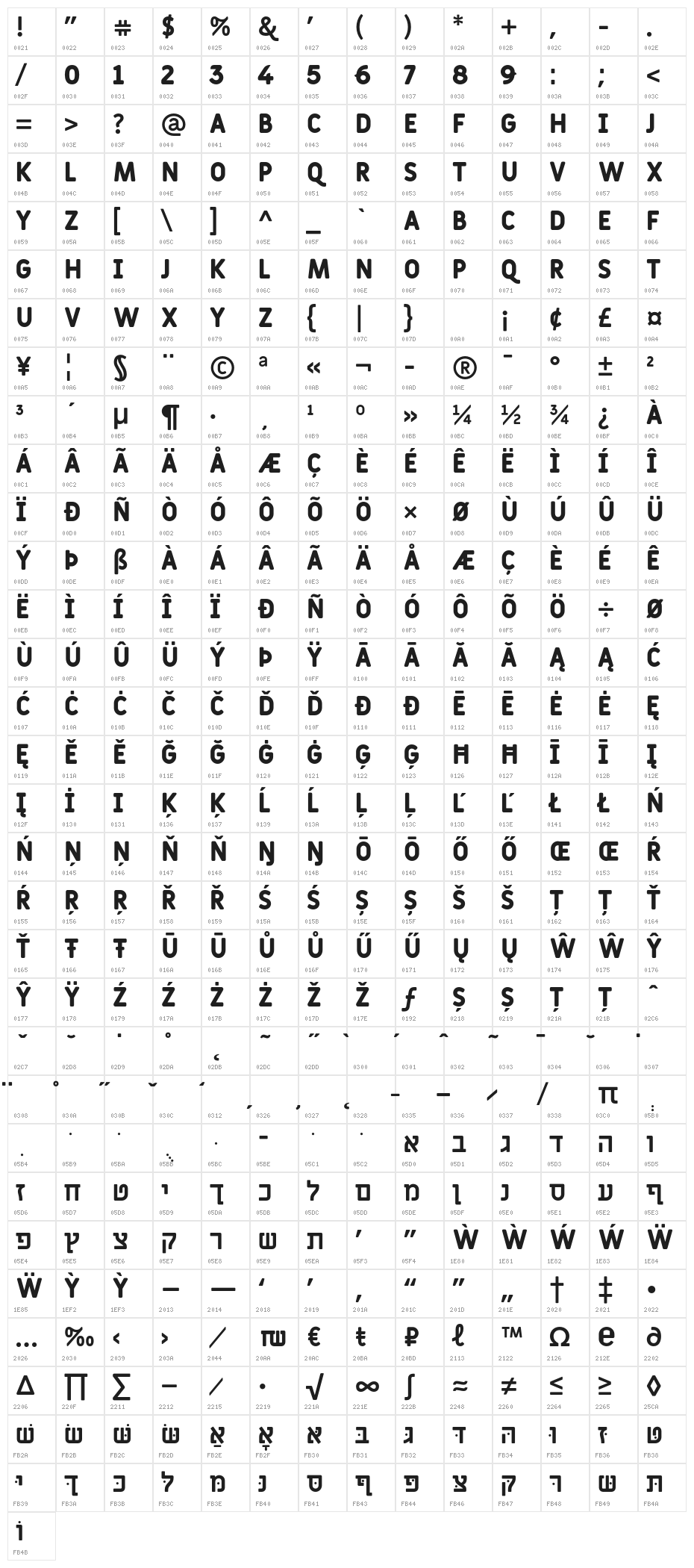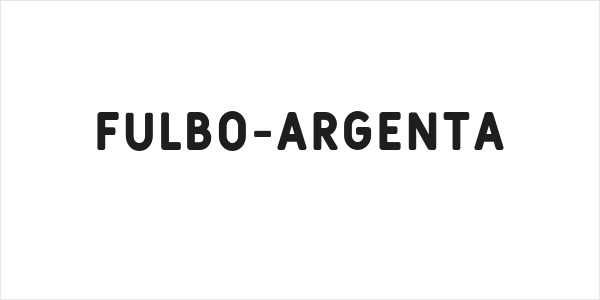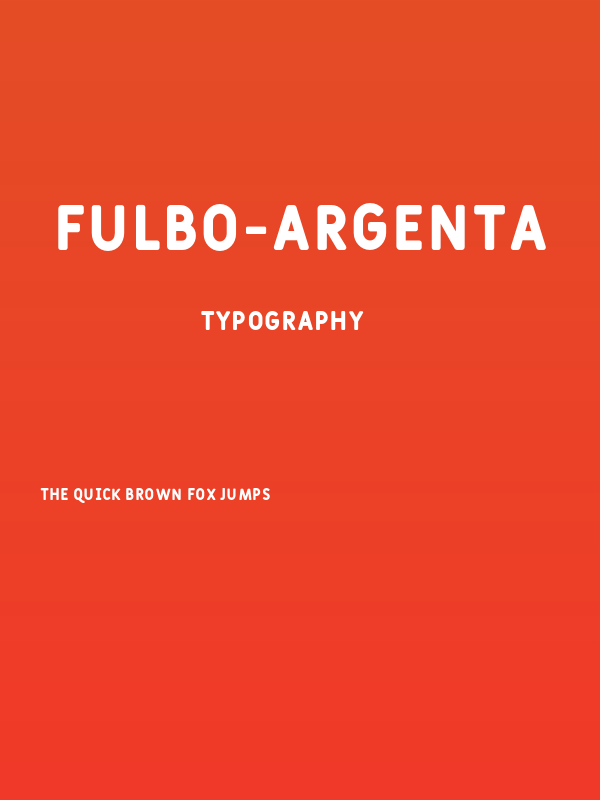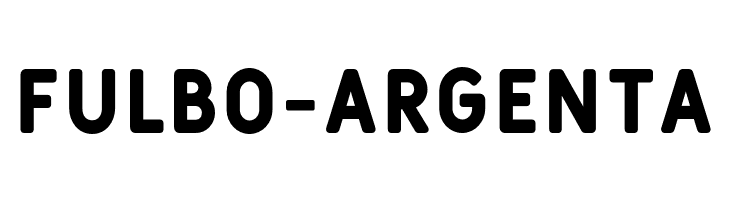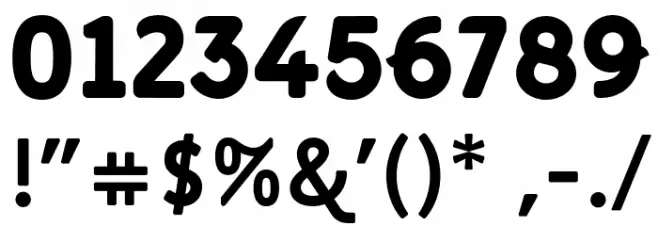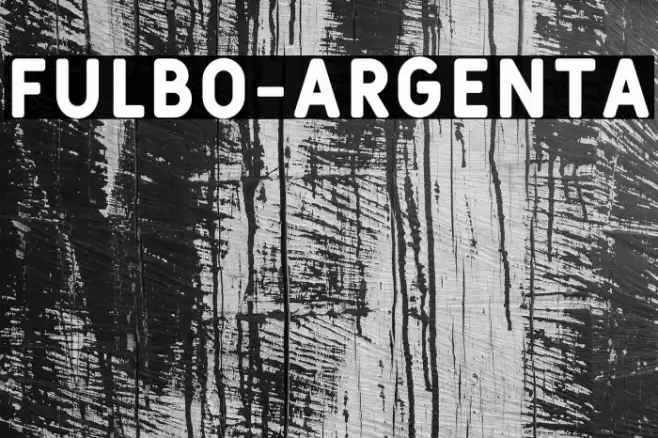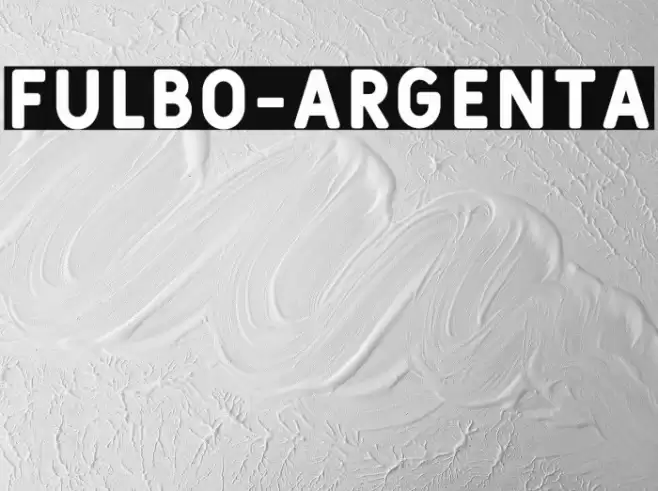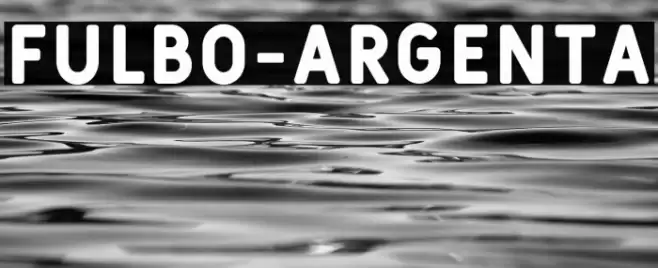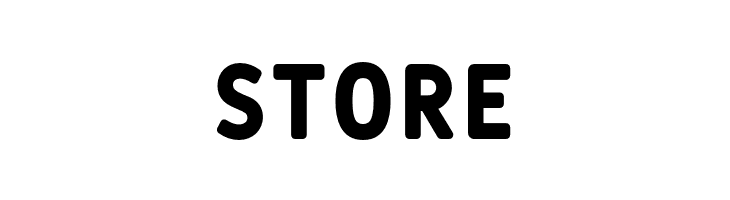
Fulbo-Argenta Font
Fulbo-Argenta Description
This font features bold, rounded characters with a modern and approachable style. The letters are uniformly thick, giving a strong and confident appearance. The rounded edges soften the overall look, making it friendly and inviting. The numbers and special characters follow the same design principles, ensuring consistency across all glyphs. The font's simplicity and clarity make it highly legible, even at smaller sizes. Its geometric shapes and balanced proportions contribute to a harmonious and cohesive visual experience.
Fulbo Font
| Use Case | Headlines, Logos, Advertising |
| Proposed Projects | Ideal for branding, advertising, packaging, and digital media where a friendly and modern look is desired. |